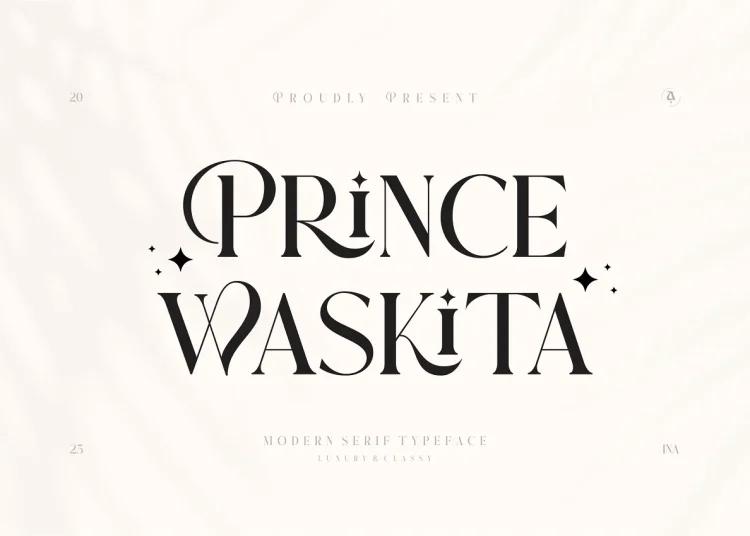
Prince Waskita Font
Prince Waskita is an elegant display serif font that boasts over 270 characters, including both lowercase and uppercase letters, multilingual alternatives, and widely used punctuation and symbols. With its sophisticated design, it’s the perfect choice for logos, social media posts, packaging designs, and a variety of creative projects.
Whether you’re designing for print or digital platforms, Prince Waskita’s versatility ensures it will make your typography shine. Its refined yet modern appeal will elevate any project, adding a touch of elegance and professionalism.